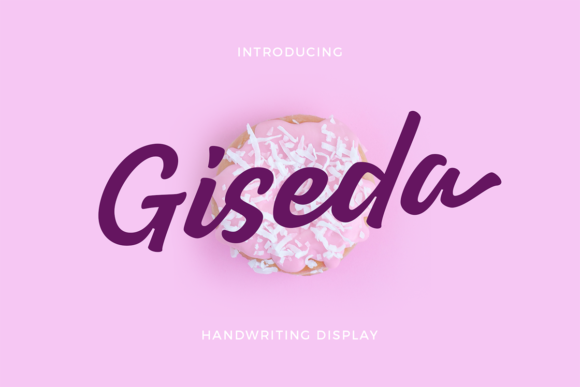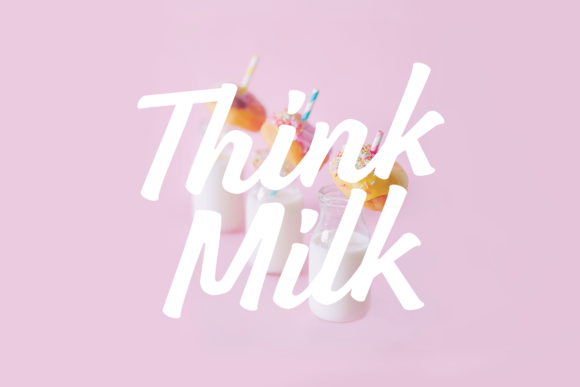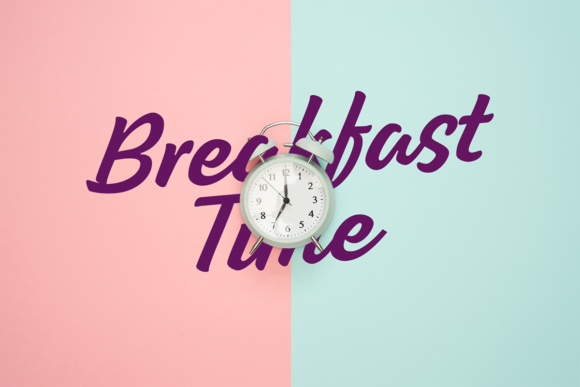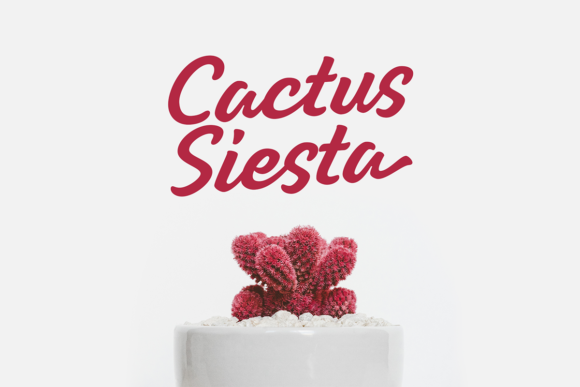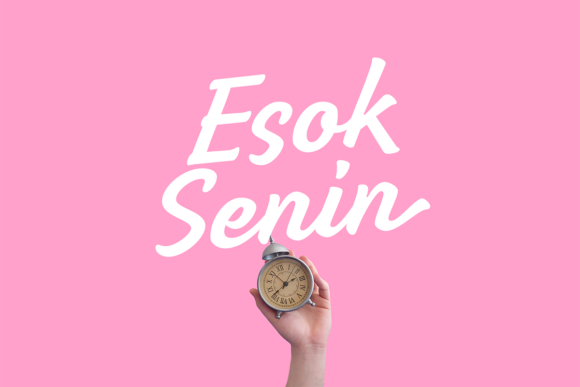
Giseda Font
About Giseda Font
Giseda is a lovely brushed handwritten font, featuring the perfect amount of trendiness. Cursive and incredibly adaptable, this font will match plenty of designs.